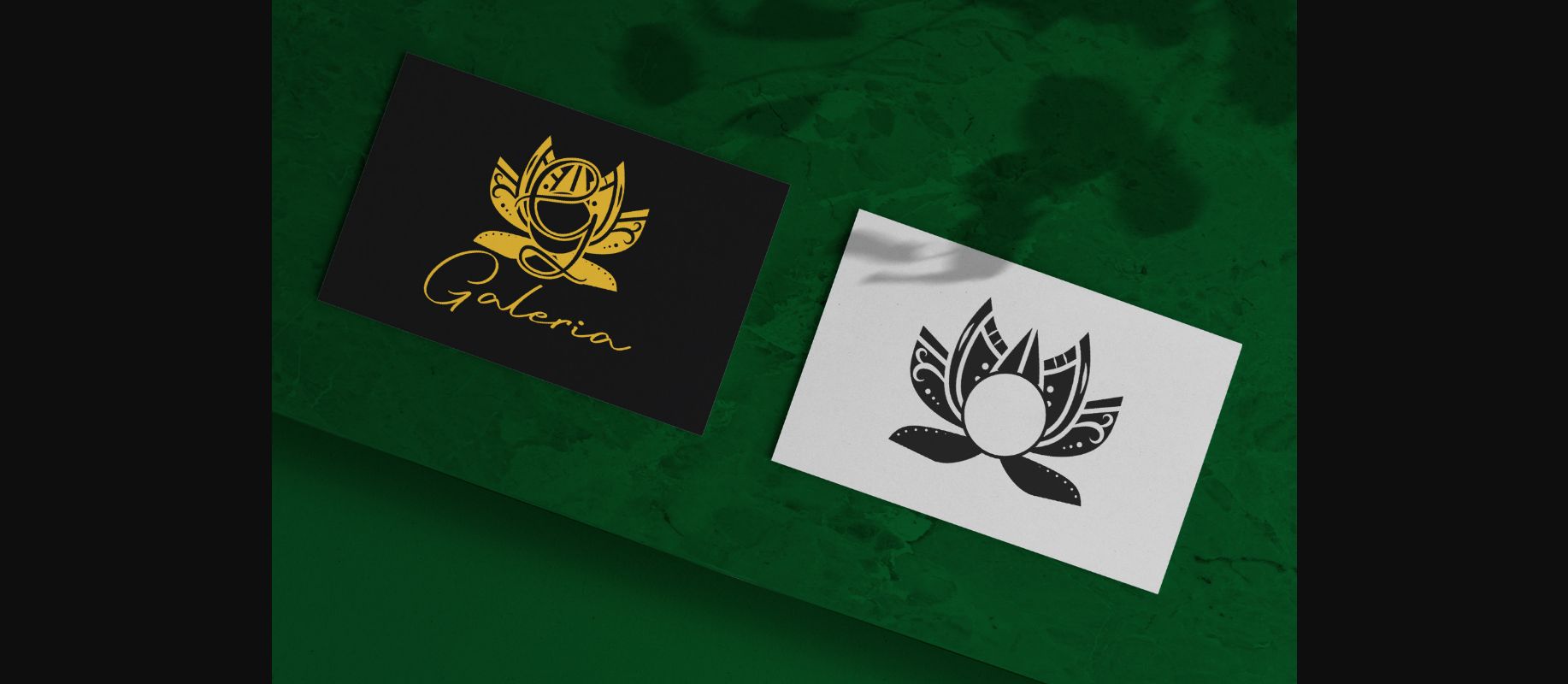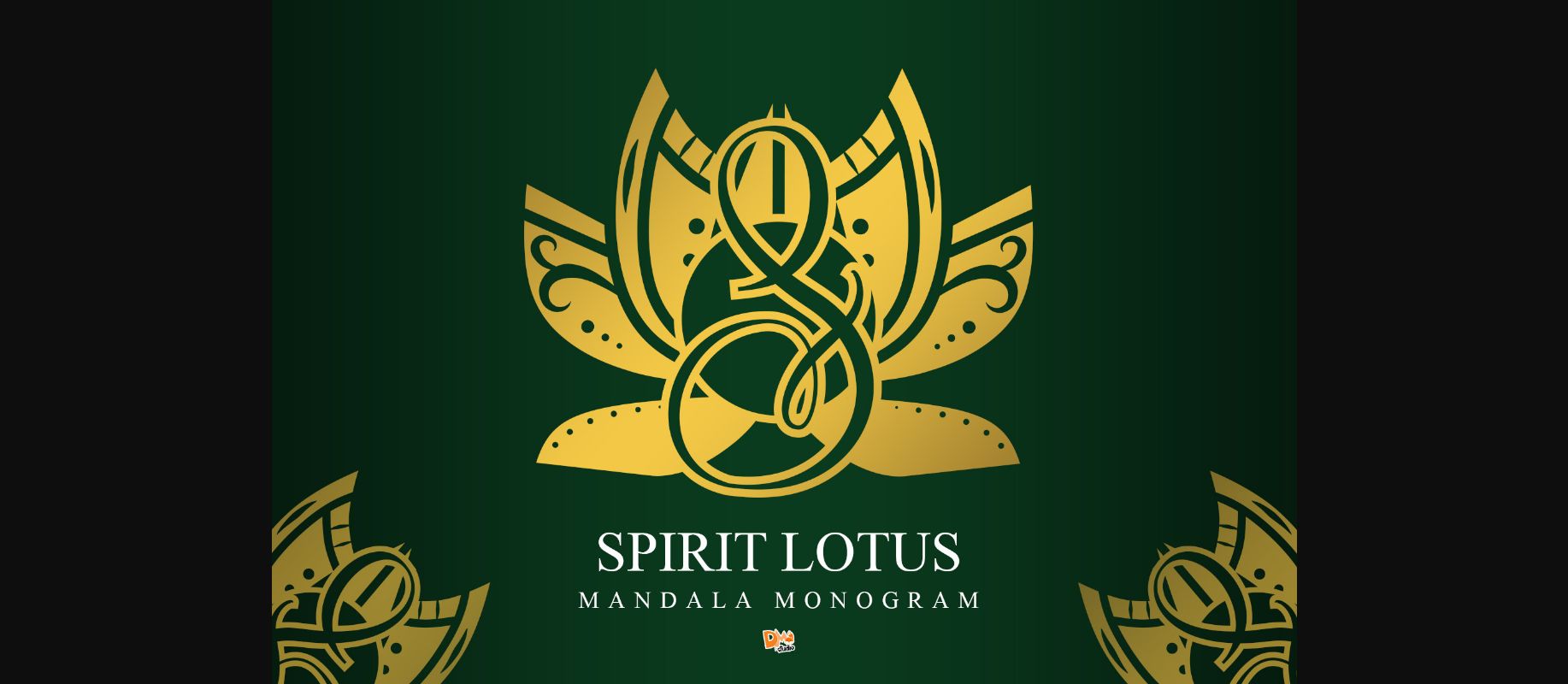
About Spirit Lotus Mandala Font
Spirit Lotus Mandala Monogram is an elegant and genuine decorative font.
Unique font inspired by the elegance of lotus flower, great pair to combine with any beautiful design, both formal and personal purposes.